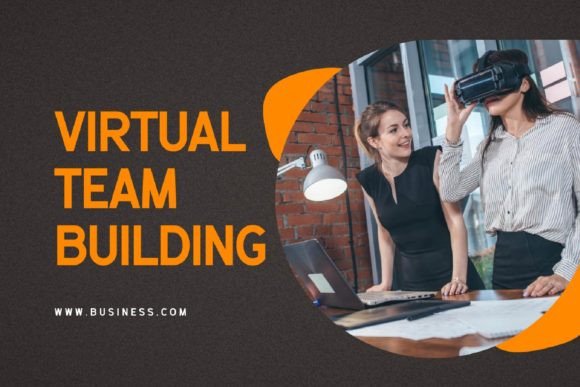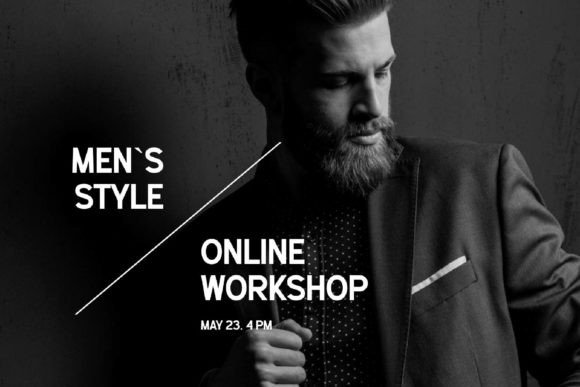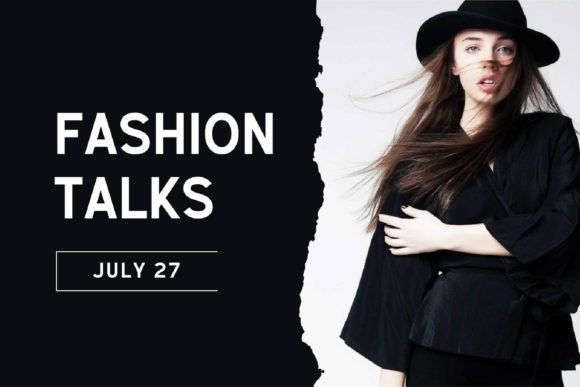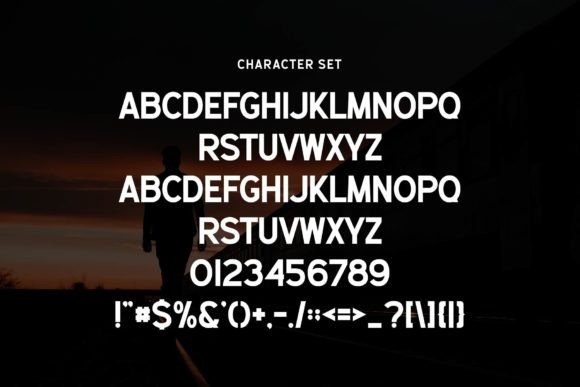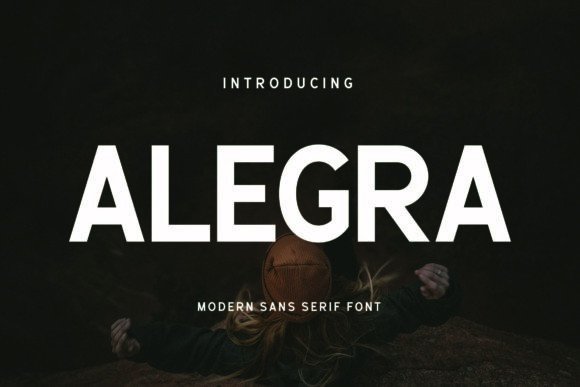
Alegra Font: The Modern Sans Serif for Elegant Designs
In the world of design, fonts play a crucial role in conveying the message and aesthetic of a project. For designers and crafters looking for a modern and elegant sans serif font, Alegra Font is an excellent choice. Inspired by famous minimalist logos, Alegra Font is perfect for creating stunning templates, brochures, videos, advertising branding, logos, invitations, layout designs, and more.
The Inspiration Behind Alegra Font
Alegra Font draws inspiration from the simplicity and elegance of minimalist logos. The font’s clean lines, simple shapes, and balanced proportions make it an ideal choice for designers seeking a modern and sophisticated look. The minimalist approach ensures that the font remains versatile and adaptable to various design contexts.
Key Features of Alegra Font
Alegra Font boasts several key features that make it an attractive option for designers:
• Modern sans serif design: Alegra Font’s sleek and contemporary design ensures that your projects look fresh and up-to-date.
• Clean lines and simple shapes: The font’s minimalist approach creates a clean and elegant look, perfect for designs that require sophistication.
• Balanced proportions: Alegra Font’s balanced proportions ensure that the text is easy to read and understand, making it ideal for body text and headings.
• Versatility: Alegra Font is suitable for a wide range of design applications, from branding and advertising to crafting and beauty design.
Use Cases for Alegra Font
Alegra Font is a versatile font that can be used in various design projects, including:
• Template design: Create stunning templates for presentations, reports, and more with Alegra Font’s modern and elegant design.
• Brochure design: Use Alegra Font to create eye-catching brochures that showcase your products or services.
• Video production: Alegra Font is perfect for video titles, subtitles, and lower-case text overlays.
• Advertising branding: Create memorable brand identities with Alegra Font’s clean and elegant design.
• Logo design: Use Alegra Font to create simple yet effective logos that convey your brand’s message.
• Invitation design: Create beautiful invitations for special occasions with Alegra Font’s elegant and sophisticated design.
• Layout design: Alegra Font is ideal for designing layouts for magazines, newspapers, and more.
• Elegant crafting: Use Alegra Font to create stunning craft designs, such as greeting cards, gift tags, and more.
• Beauty design: Alegra Font is perfect for creating elegant and sophisticated designs for the beauty industry, including packaging, branding, and advertising.
Why Choose Alegra Font?
Alegra Font offers several benefits that make it an attractive choice for designers and crafters:
• Elegant and sophisticated design: Alegra Font’s modern sans serif design ensures that your projects look elegant and sophisticated.
• Versatility: The font’s versatility makes it suitable for a wide range of design applications.
• Easy to read: Alegra Font’s balanced proportions and clean lines ensure that the text is easy to read and understand.
• Unique and creative: Alegra Font’s minimalist approach ensures that your designs stand out from the crowd.
In conclusion, Alegra Font is a modern sans serif font that offers a unique blend of elegance, sophistication, and versatility. Inspired by famous minimalist logos, Alegra Font is perfect for designers and crafters looking for a font that can elevate their designs. With its clean lines, simple shapes, and balanced proportions, Alegra Font is an excellent choice for a wide range of design applications. Whether you’re designing templates, brochures, videos, or more, Alegra Font is sure to impress.